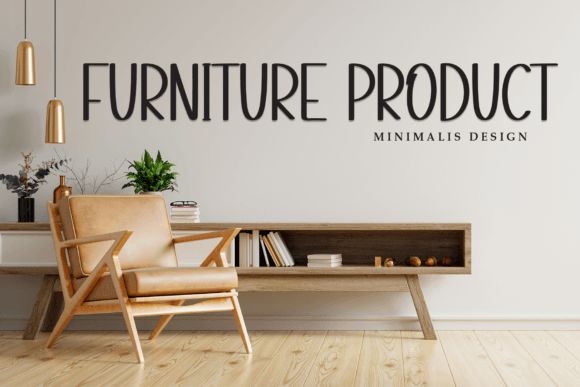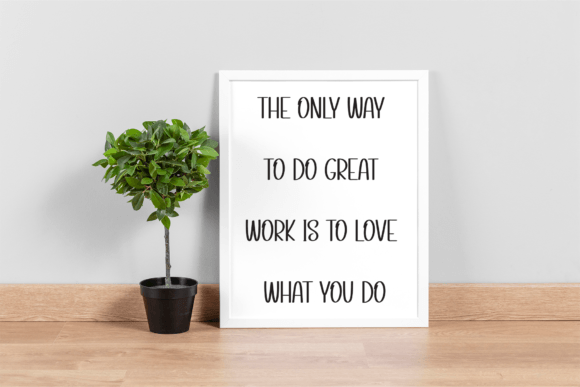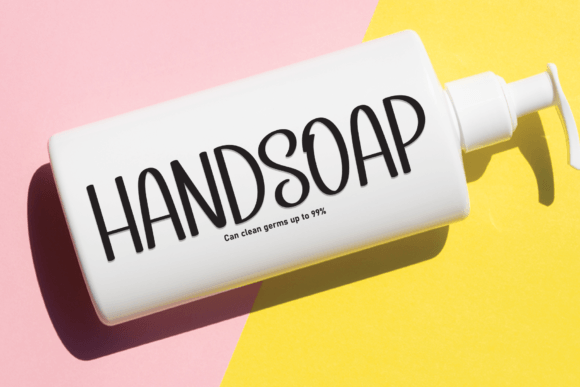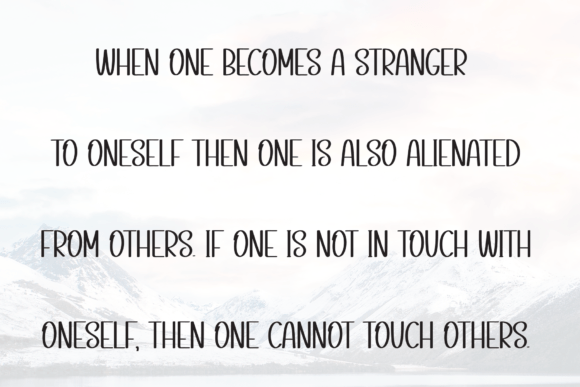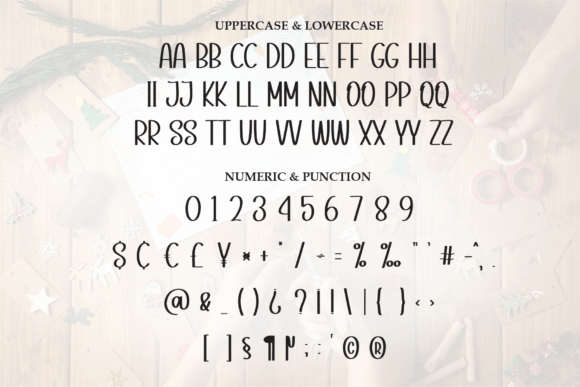
Deck the Halls with Christmas Activities Font
It’s the most wonderful time of the year! As designers and crafters, we’re always on the lookout for the perfect typography to add a touch of magic to our holiday projects. Look no further than Christmas Activities, a festive tall display font that’s sure to capture the holiday spirit with its playful and bold design.
A Font that Embodies the Joy of Christmas
Christmas Activities font is the perfect addition to any seasonal project, exuding warmth and cheer with its unique and eye-catching design. Whether you’re creating headlines, invitations, or any other creative endeavor, this font is sure to make your project stand out from the crowd. Its bold and playful design makes it an ideal choice for designers and crafters who want to add a touch of joy and festivity to their work.
From holiday greeting cards to festive party invitations, Christmas Activities font is the perfect choice for any project that celebrates the magic of Christmas. Its tall and slender design makes it perfect for headlines, titles, and other display text, while its playful and bold style adds a touch of whimsy and fun to any project.
What Makes Christmas Activities Font So Special?
- Playful and Bold Design: Christmas Activities font features a unique and eye-catching design that’s sure to capture the attention of your audience.
- Festive and Fun: This font is perfect for adding a touch of joy and festivity to any project, making it ideal for holiday-themed designs.
- Tall and Slender: The font’s tall and slender design makes it perfect for headlines, titles, and other display text.
- Easy to Read: Despite its bold and playful design, Christmas Activities font is easy to read, making it perfect for use in a variety of projects.
Tips for Using Christmas Activities Font
Here are a few tips for using Christmas Activities font in your holiday projects:
- Use it as a Headline Font: Christmas Activities font is perfect for use as a headline font, adding a touch of drama and flair to your titles and headings.
- Pair it with Other Fonts: Try pairing Christmas Activities font with other fonts to create a unique and eye-catching design.
- Experiment with Colors: Don’t be afraid to experiment with different colors and textures to add depth and interest to your design.
Ideas for Using Christmas Activities Font
Here are a few ideas for using Christmas Activities font in your holiday projects:
- Holiday Greeting Cards: Use Christmas Activities font to create festive and fun holiday greeting cards that are sure to delight your friends and family.
- Festive Party Invitations: Create eye-catching and festive party invitations with Christmas Activities font, perfect for holiday parties and celebrations.
- Christmas Gift Tags: Use Christmas Activities font to create personalized and festive Christmas gift tags that add a touch of magic to your holiday gifts.
Christmas Activities font is a festive and fun font that’s perfect for adding a touch of joy and magic to your holiday projects. With its playful and bold design, tall and slender style, and easy-to-read text, this font is sure to become a favorite among designers and crafters. So why wait? Download Christmas Activities font today and start creating your own festive and fun holiday projects!